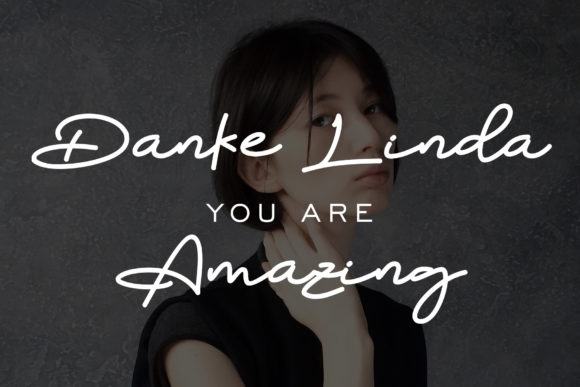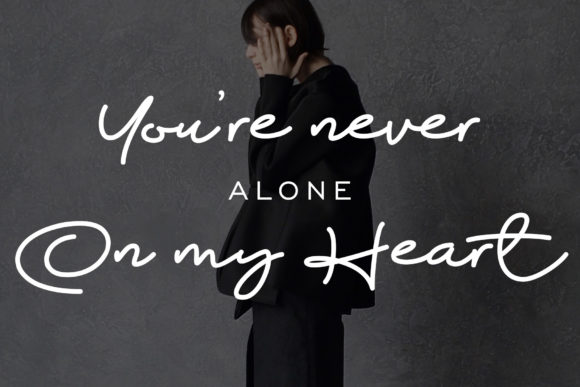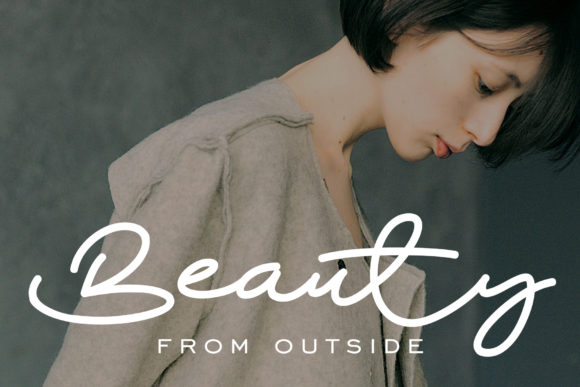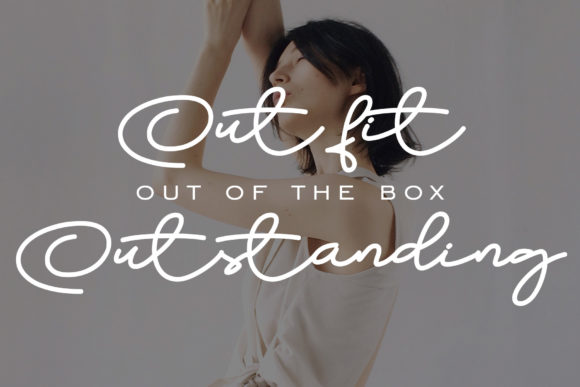
HomeScript FontsDanke Linda Font Script Fonts Danke Linda Font FacebookXPinterestWhatsApp Danke Linda Font Poster 2 Danke Linda Font Poster 3 Danke Linda Font Poster 4 About Danke Linda Font Danke Linda is a fashionable and quirky handwriting font. DOWNLOAD ON CREATIVE FABRICAThis font is sold and delivered by Creative Fabrica. Font Canyon may earn a commission if you buy through this link. People also explored Defoils Font Relevance Font Hello Rainbow Font Brandon Smith Font Amore Font Butter Island Font Mr. Fix It Font Derriey Vignettes Family Font Wildlove Font 422 0 TagsDanke Linda Font Previous articleMagic Anomali FontNext articleStarlight Font LEAVE A REPLY Cancel reply Comment: Please enter your comment! Name:* Please enter your name here Email:* You have entered an incorrect email address! Please enter your email address here Website: Save my name, email, and website in this browser for the next time I comment. Personal Use Free Hair Thinned Personal Use Free Read more about this font Makcex Personal Use Free Read more about this font Amelline Personal Use Free Read more about this font Hanberra Personal Use Free Read more about this font BLOG The 10 Best Handwriting Fonts to Add Personality to Your Designs 10 of the Best Handwriting Fonts for Adding Personality to Your Designs There will undoubtedly be no other better choice than handwriting fonts to give... Fonts That Capture the Spirit of New York City Best Fonts for T-Shirt Design – Top 2025 Picks Free vs Paid Fonts: Why Investing in Premium Fonts Is Worth It